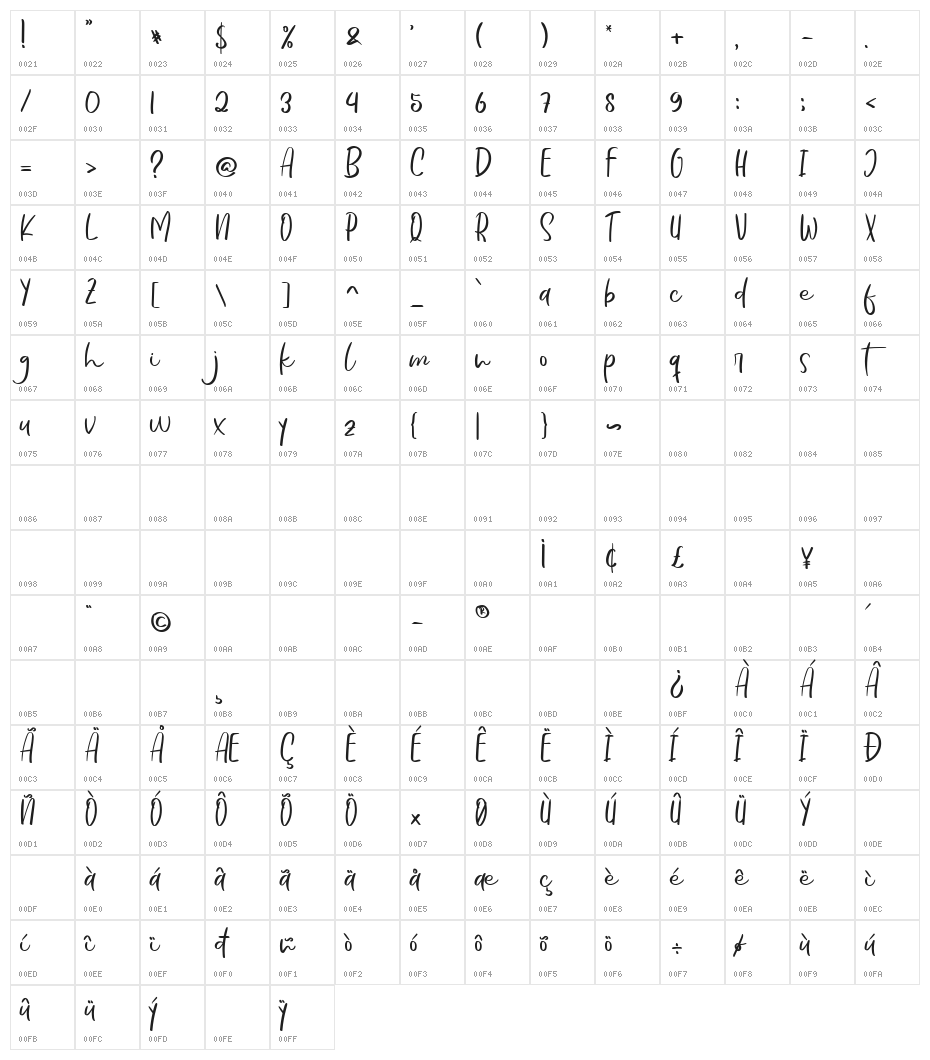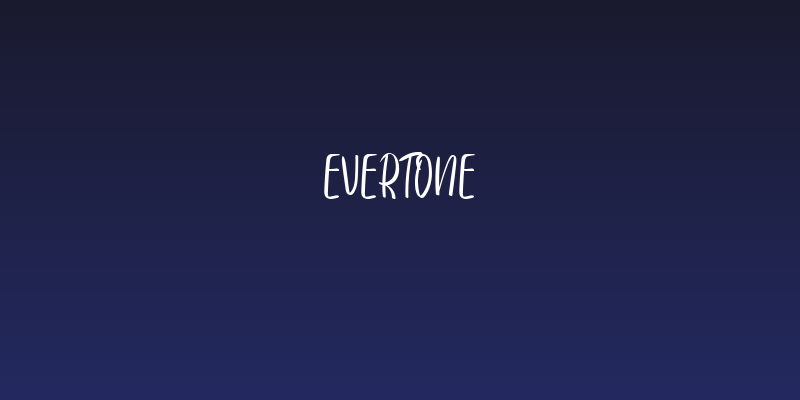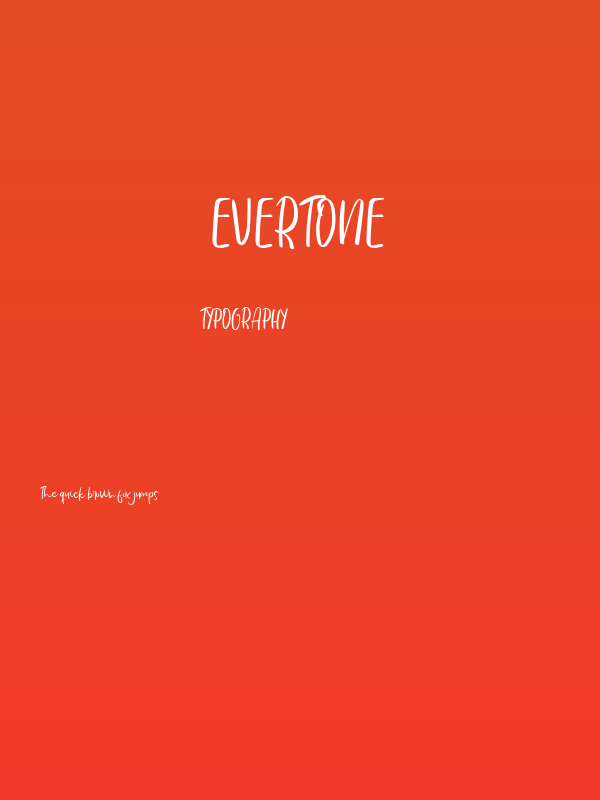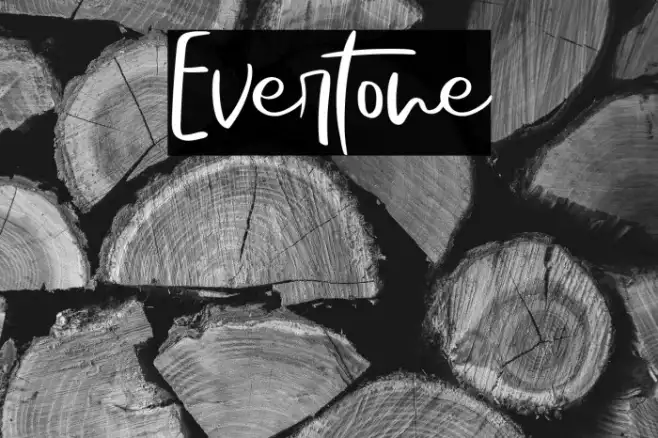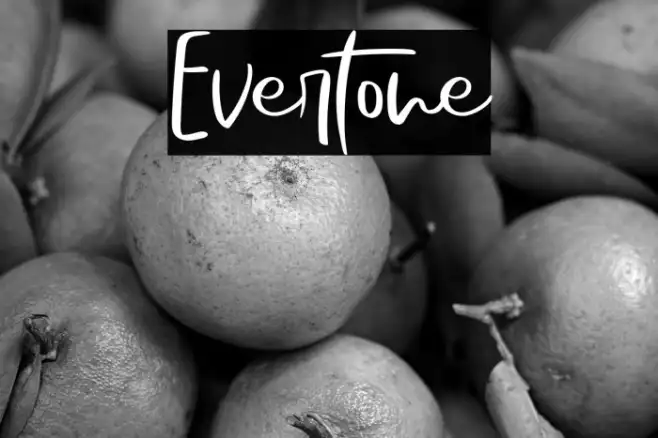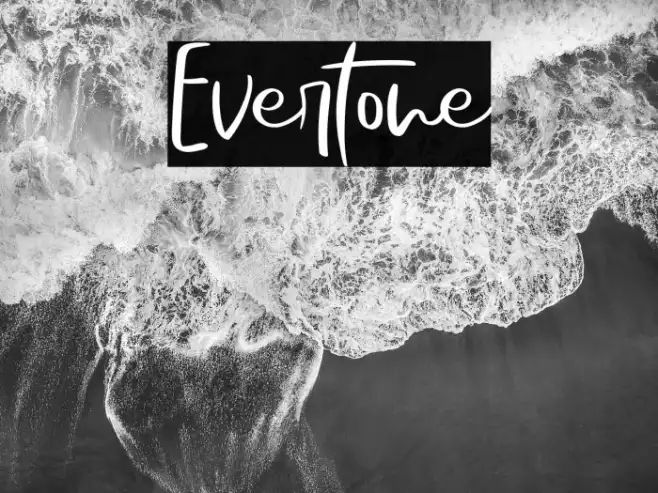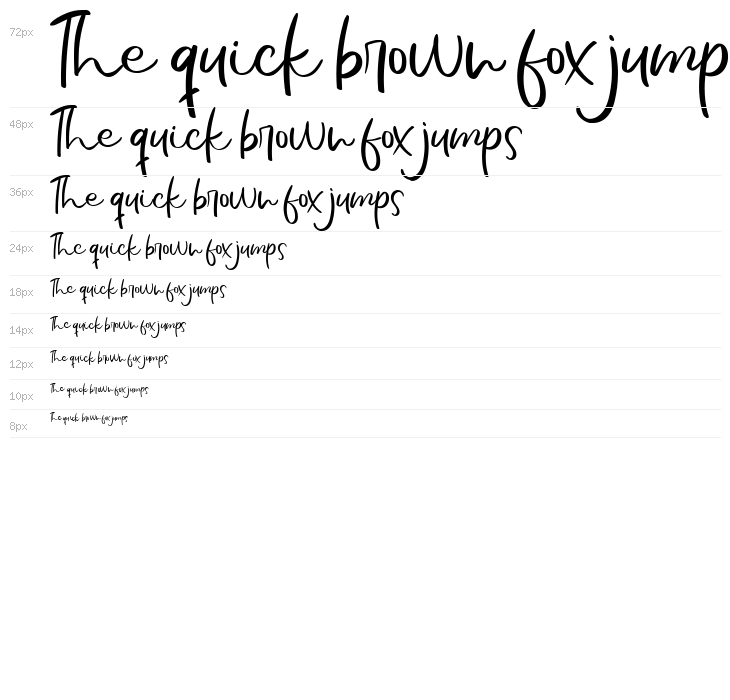
Evertone Font
Evertone Description
This font exhibits a playful and energetic handwritten style, characterized by its fluid and dynamic strokes. The uppercase letters are bold and slightly slanted, giving a sense of movement and spontaneity. The lowercase letters maintain a consistent flow, with some letters featuring unique loops and curves that add to the font's charm. The numbers are clear and legible, matching the overall style of the alphabet. Special characters are creatively integrated, maintaining the font's lively aesthetic. This font is perfect for projects that require a personal touch or a casual, friendly vibe.
| Use Case | Logos, Headlines, Personal projects |
| Proposed Projects | Ideal for greeting cards, invitations, personal branding, and social media graphics. |